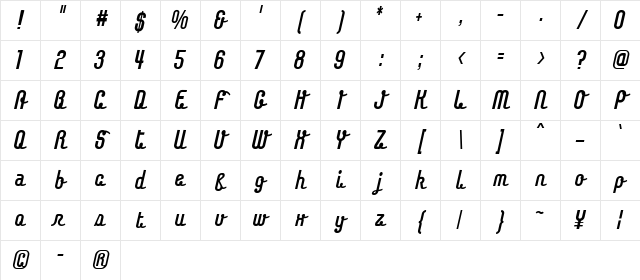
Chaingochic Regular Free Font
Chaingochic Regular
Design Context for Chaingochic
Chaingochic is a composed and adaptable typeface that performs quietly and consistently across a wide range of design contexts.